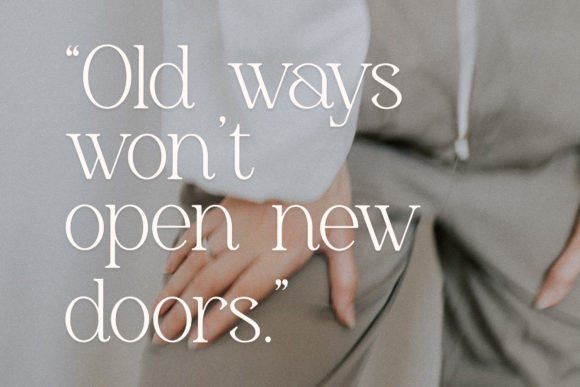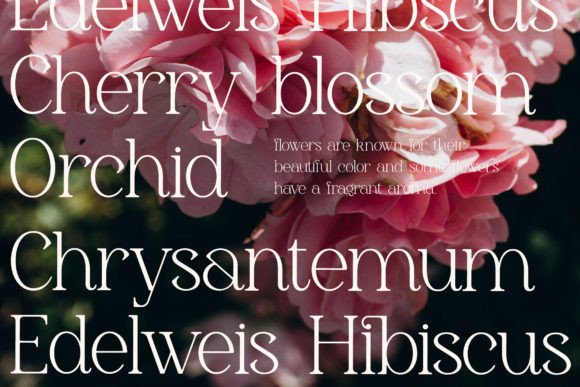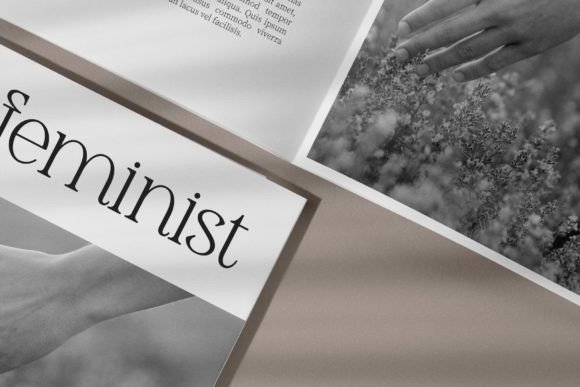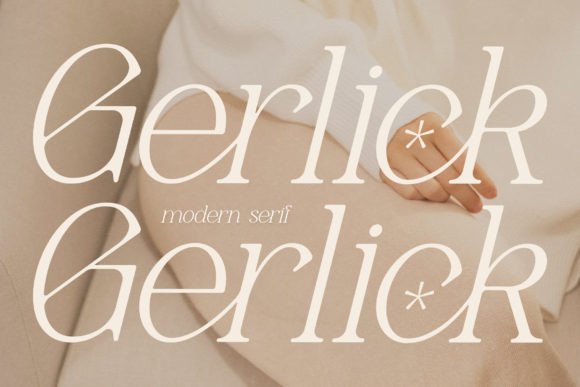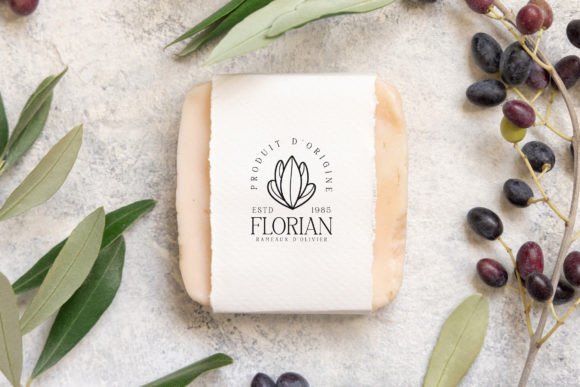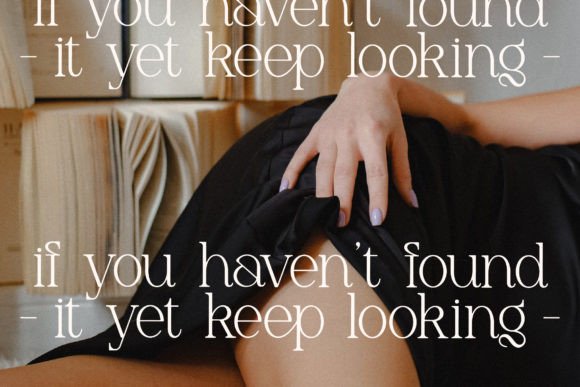
Introducing Gerlick Font: The Epitome of Modern Elegance
In the realm of typography, few fonts manage to strike a balance between modernity and classic sophistication. Gerlick Font is one such marvel, a serif typeface that exudes a unique style and a modern look, making it an ideal choice for designers and crafters aiming to infuse elegance and luxury into their projects.
The Essence of Gerlick Font
Gerlick is not just another typeface; it’s a statement. Its modern and classic serif design makes it versatile, capable of elevating a wide range of design projects. Whether you’re working on an elegant logo, a luxury brand identity, a book or movie title, a fashion brand, a magazine, or even intricate lettering and quotes, Gerlick Font is the perfect companion.
One of the standout features of Gerlick Font is its incredible versatility. Its design is broad enough to encompass various applications, including:
• Elegant Logos: For businesses that want to project a sophisticated and high-end image, Gerlick Font can be the cornerstone of their logo design.
• Book and Movie Titles: Bring a touch of class and allure to your book covers or movie posters with Gerlick’s distinctive serif style.
• Fashion Brands: Perfect for fashion labels that aim to communicate luxury, style, and a modern approach to fashion.
• Magazines: Elevate your magazine’s typography with a font that commands attention and exudes professionalism.
• Clothes and Apparel: Use Gerlick Font on clothing and apparel to add a unique and stylish touch.
• Lettering and Quotes: Its elegant lines make it ideal for creating beautiful lettering pieces and impactful quotes.
Why Choose Gerlick Font?
Choosing Gerlick Font for your design project comes with numerous benefits:
• Unique Style: Gerlick offers a fresh take on serif typography, making your designs stand out.
• High Readability: Despite its elegant and modern look, Gerlick maintains high readability, making it suitable for both headings and body text.
• Customization: The font is designed to be easily customized, allowing you to tweak it to fit your project’s specific needs.
Tips for Using Gerlick Font
To maximize the potential of Gerlick Font, consider the following tips:
• Pair it Wisely: When combining Gerlick with other fonts, opt for those that complement its serif style. A sans-serif font for body text can create a striking contrast.
• Play with Weights: Gerlick comes in various weights. Experimenting with these can add depth and hierarchy to your design.
• Attention to Spacing: Ensure adequate spacing between letters and lines to maintain readability and aesthetic appeal.
Gerlick Font stands out in the world of typography as a beacon of modern elegance and classic sophistication. Its versatility, unique style, and broad range of applications make it an invaluable asset for designers and crafters. Whether you’re aiming to create a luxurious brand identity, an elegant logo, or simply looking to elevate your typography, Gerlick Font is a choice that promises to bring your designs to the next level.
Embrace the elegance and modernity that Gerlick Font has to offer. Explore its capabilities and let it transform your design projects into masterpieces of typography and style.